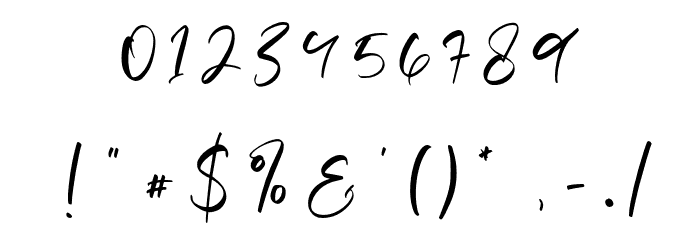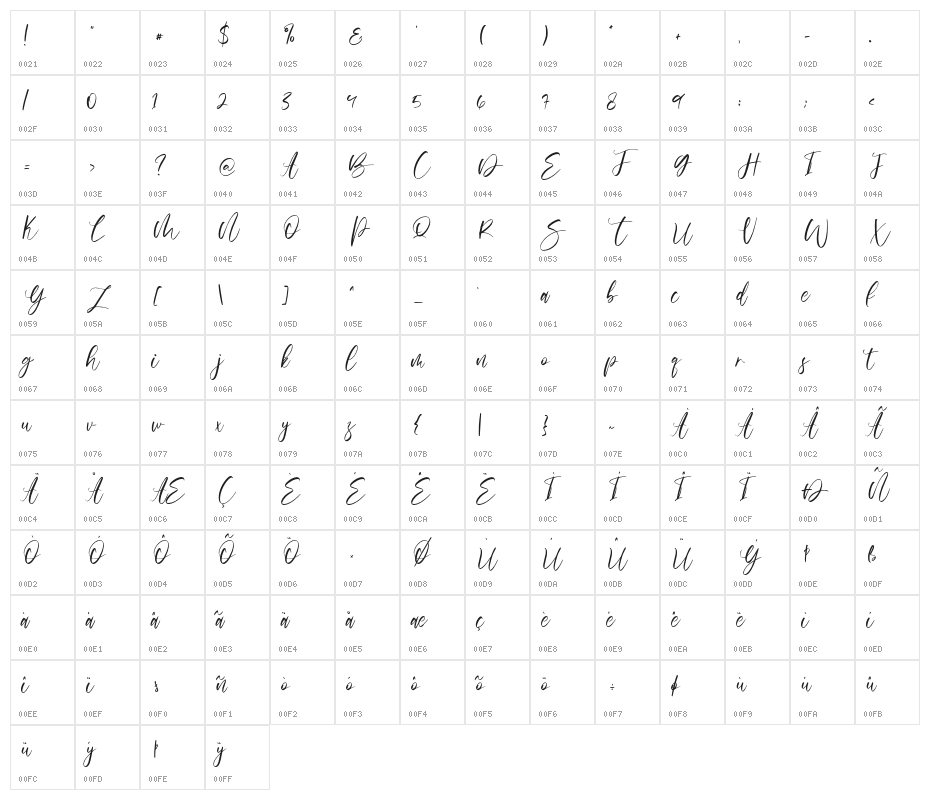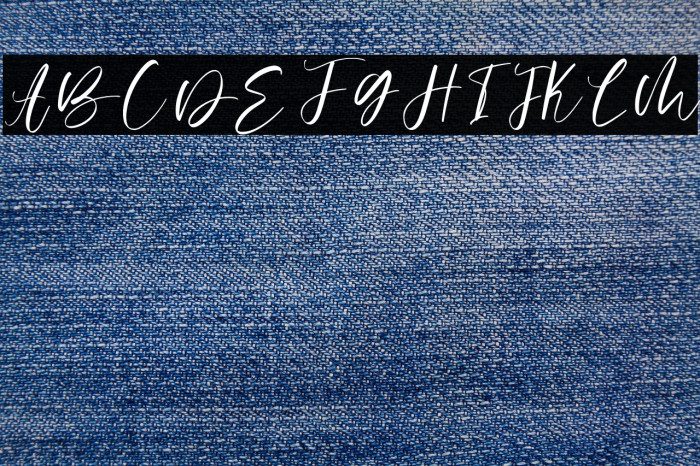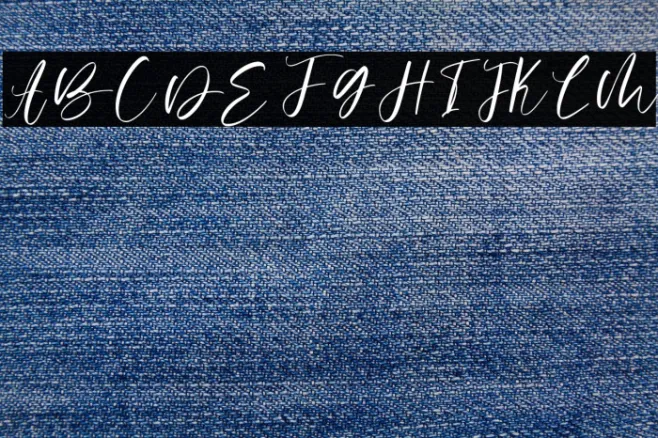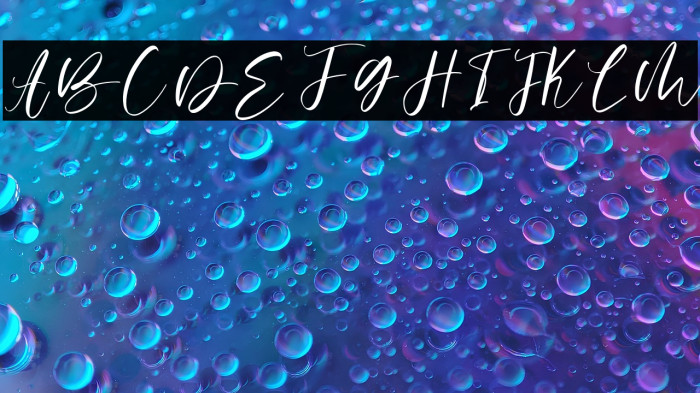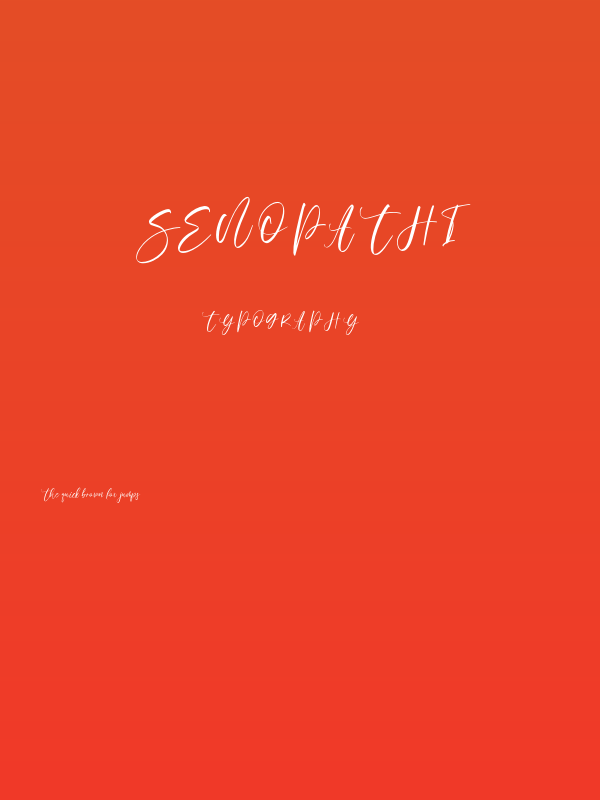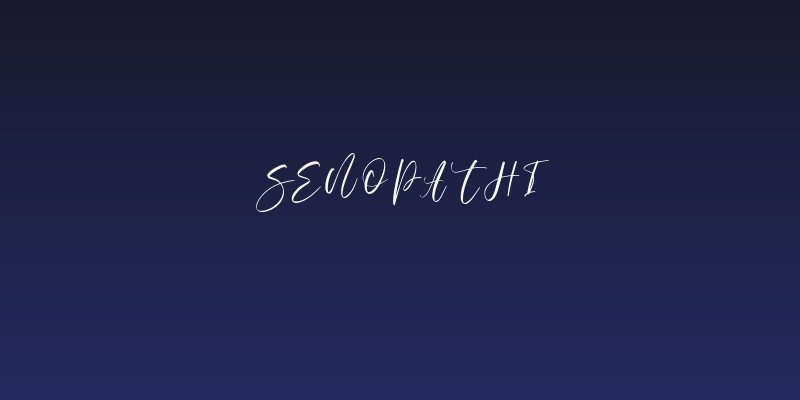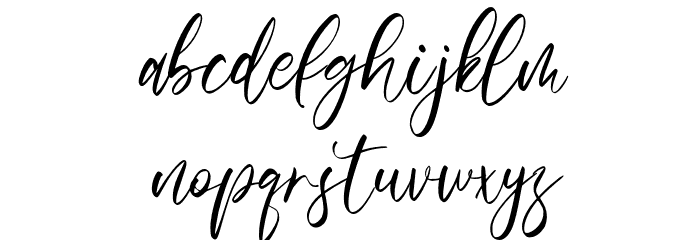
Senopathi Font
Senopathi Description
This font exudes a lively and expressive character with its flowing, cursive style. The letters are elegantly connected, creating a seamless and dynamic appearance. The strokes vary in thickness, adding a sense of movement and grace. The uppercase letters are bold and prominent, while the lowercase letters maintain a consistent flow. Numbers and special characters are designed to complement the overall style, ensuring a cohesive look across all text. This font is perfect for projects that require a personal touch, such as invitations, greeting cards, or branding materials.
| Proposed Projects | Ideal for invitations, greeting cards, branding, and personal projects. |